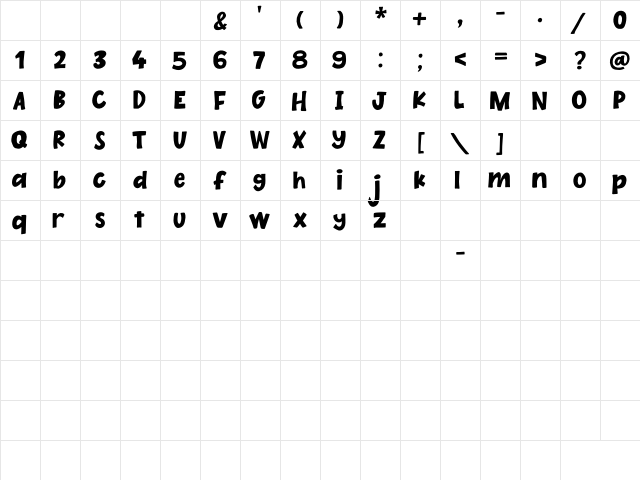
The Chery Moya Regular
| Designer | Risca Anitawati |
Design Context for The Chery Moya Typeface
The Chery Moya is a composed and adaptable typeface that performs quietly and consistently across a wide range of design contexts.